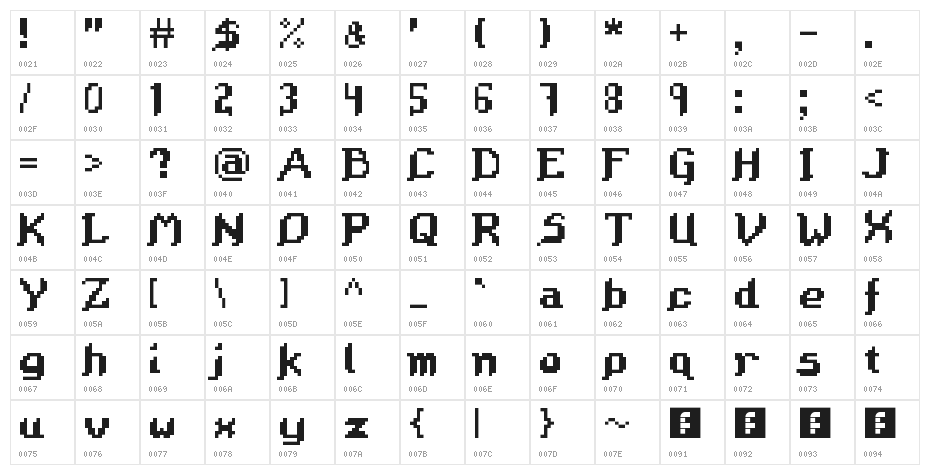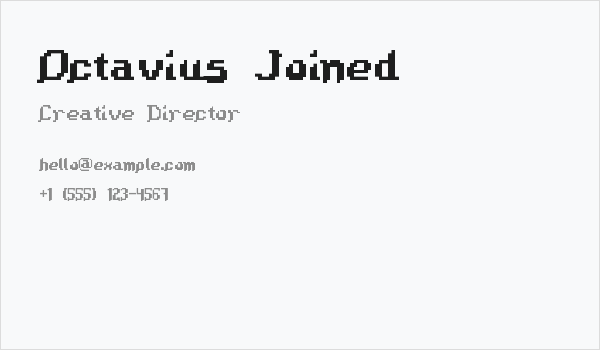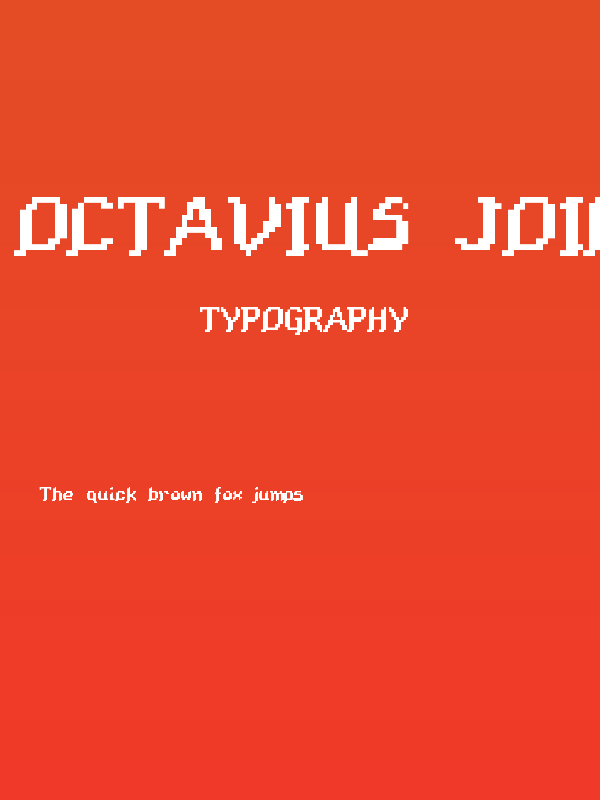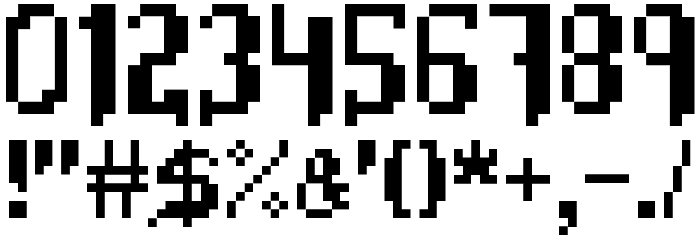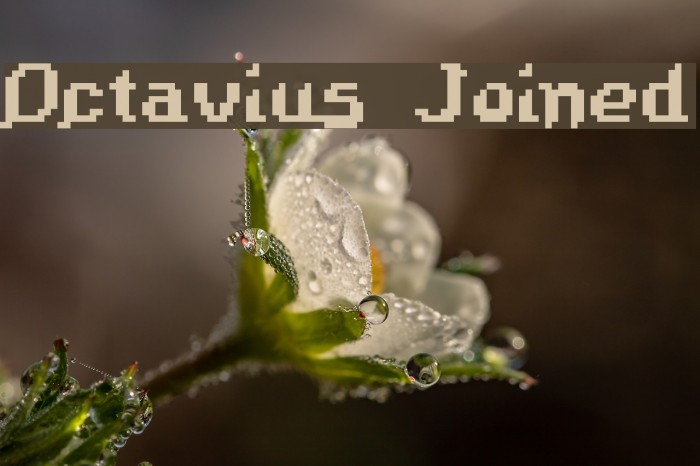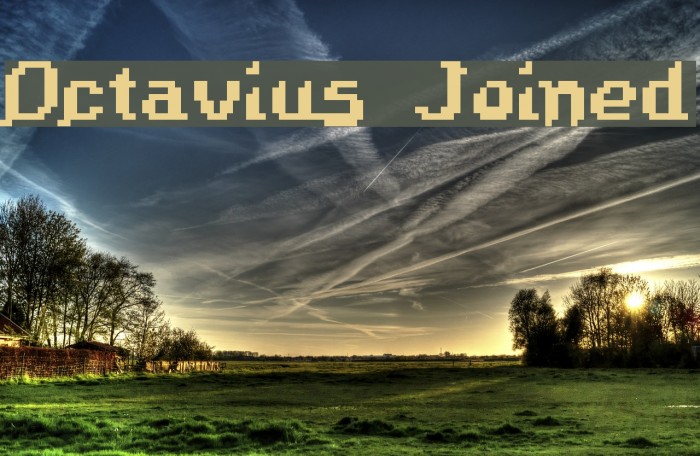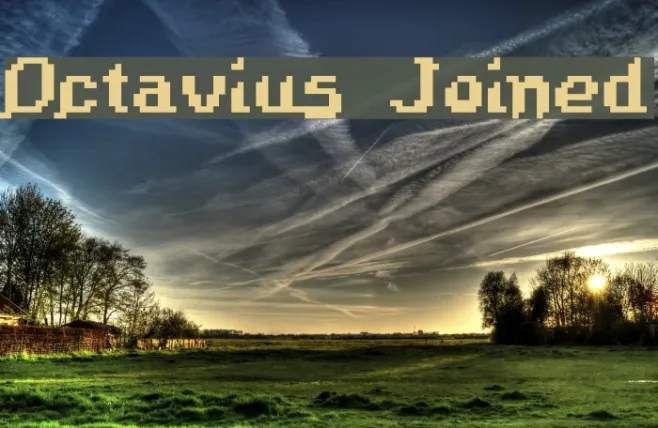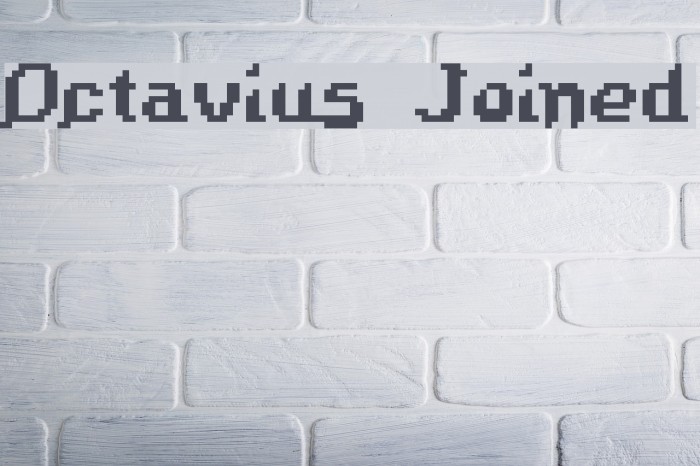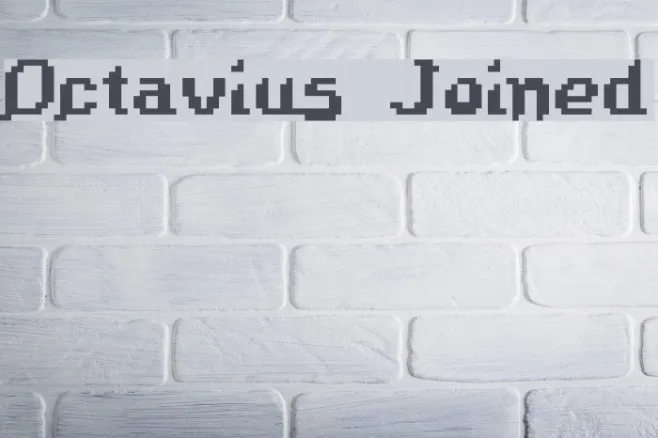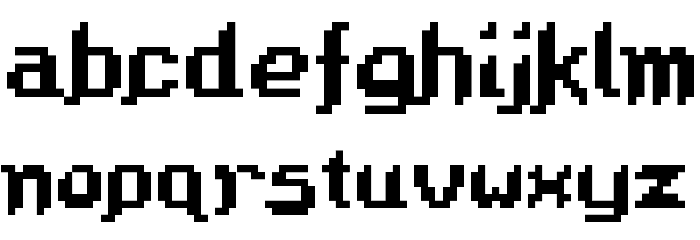
Octavius Joined Font
Octavius Joined Description
This font features a bold, pixelated design reminiscent of classic video game graphics. Each character is constructed with sharp, angular lines and a blocky appearance, giving it a distinct retro feel. The uppercase and lowercase letters maintain a consistent style, with the lowercase slightly more compact. Numbers and special characters follow the same pixelated aesthetic, ensuring uniformity across all glyphs. The font's unique style makes it stand out, ideal for projects that aim to evoke nostalgia or a digital, tech-inspired theme.
| Proposed Projects | Ideal for video game graphics, retro-themed posters, digital art, and tech-inspired branding. |